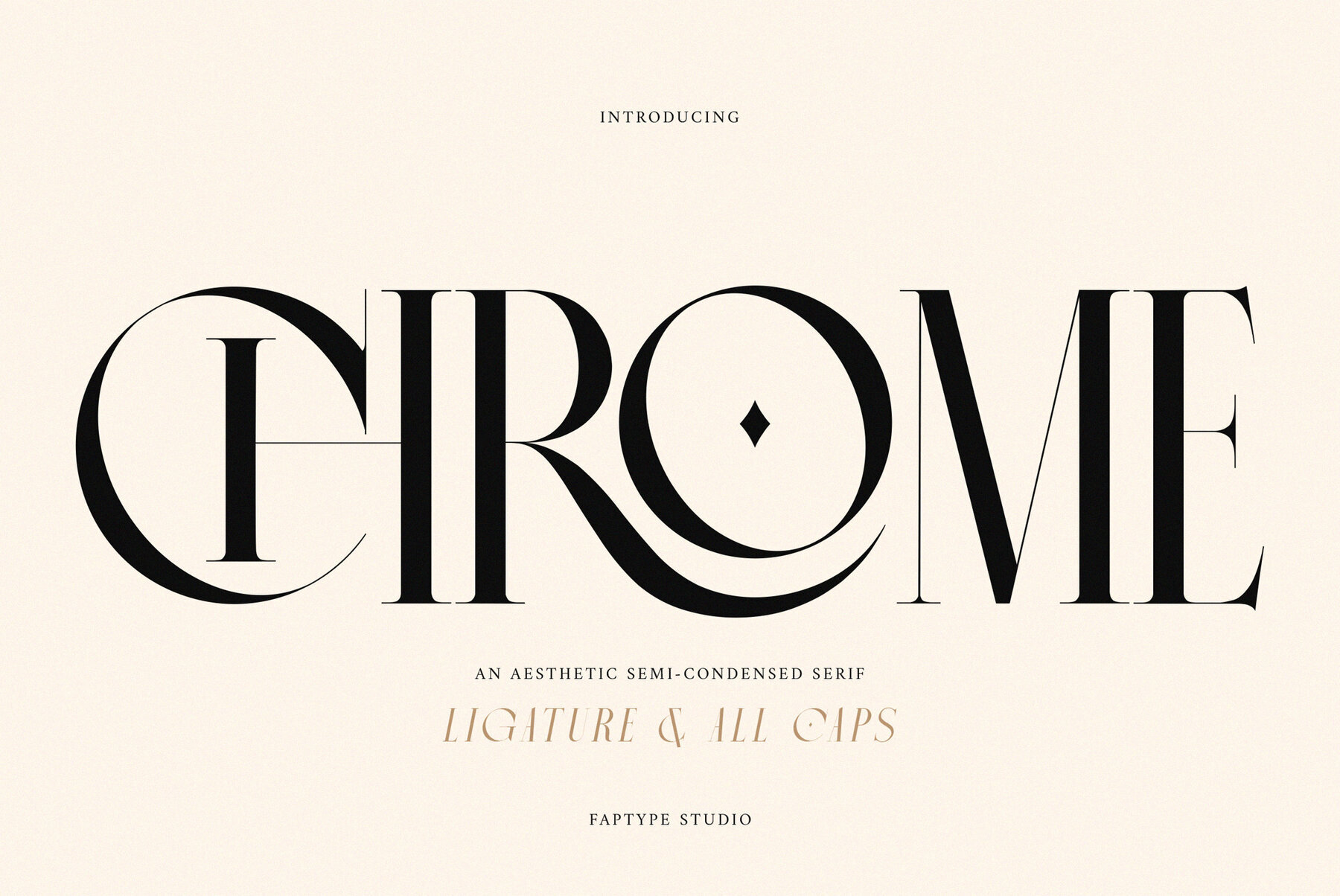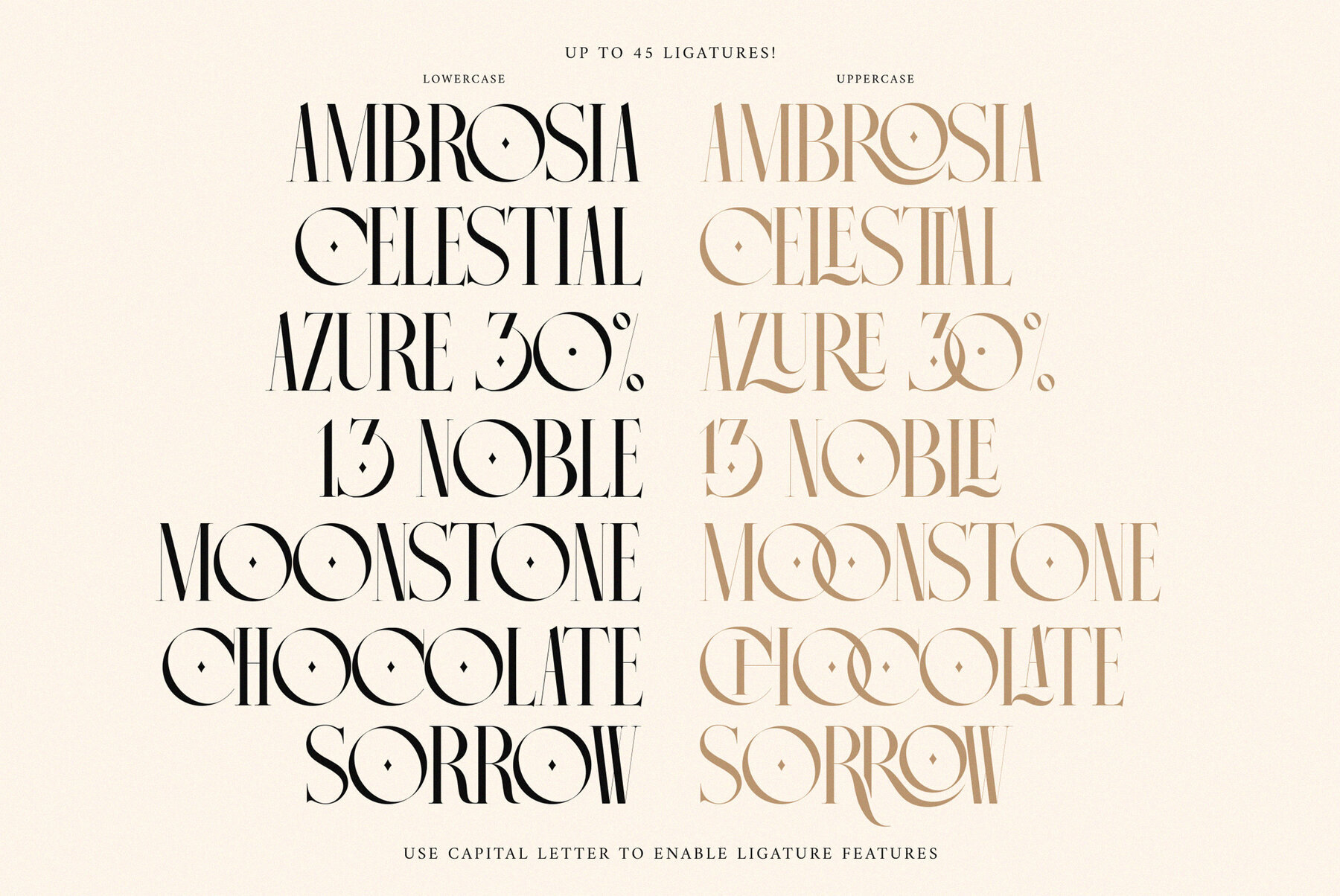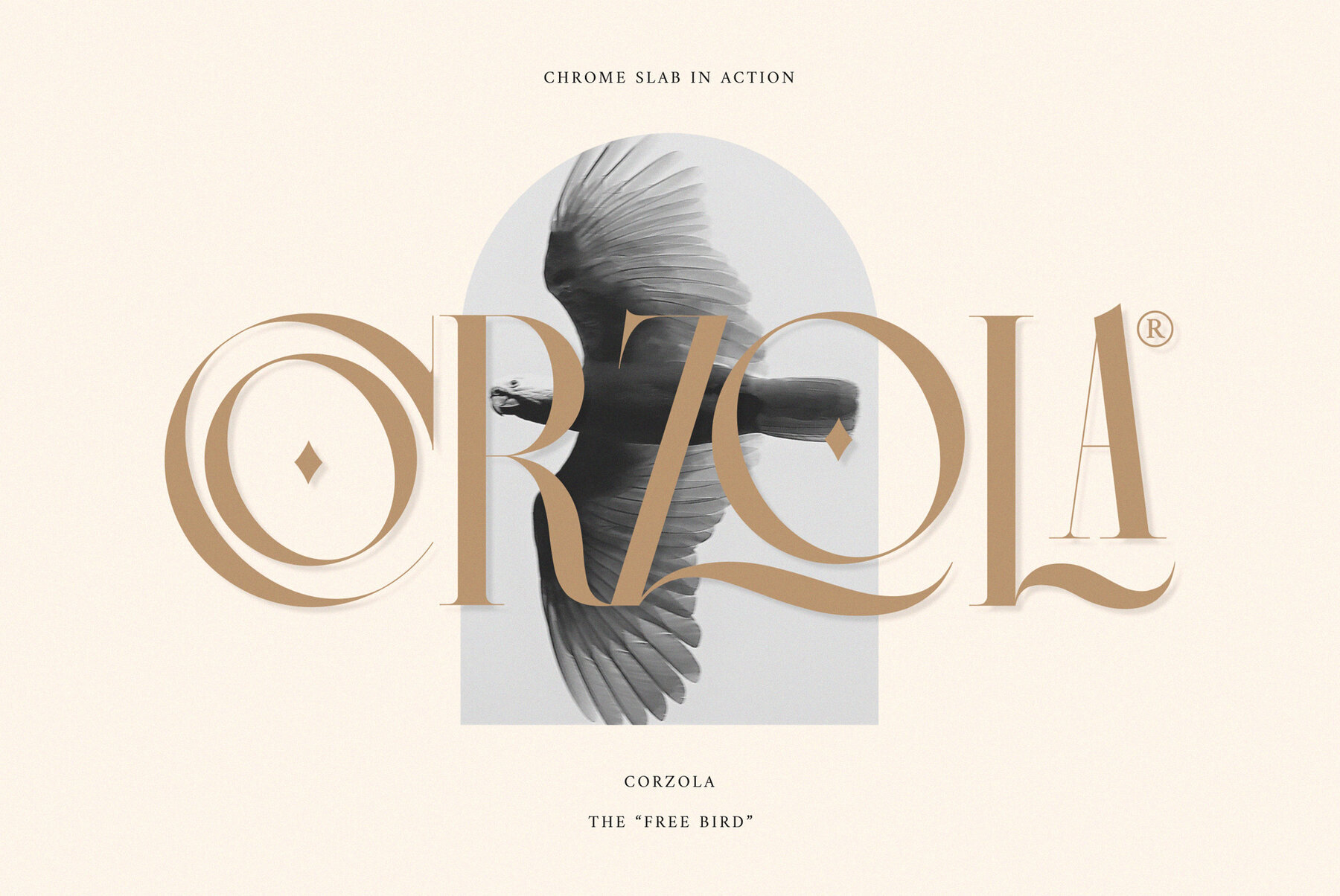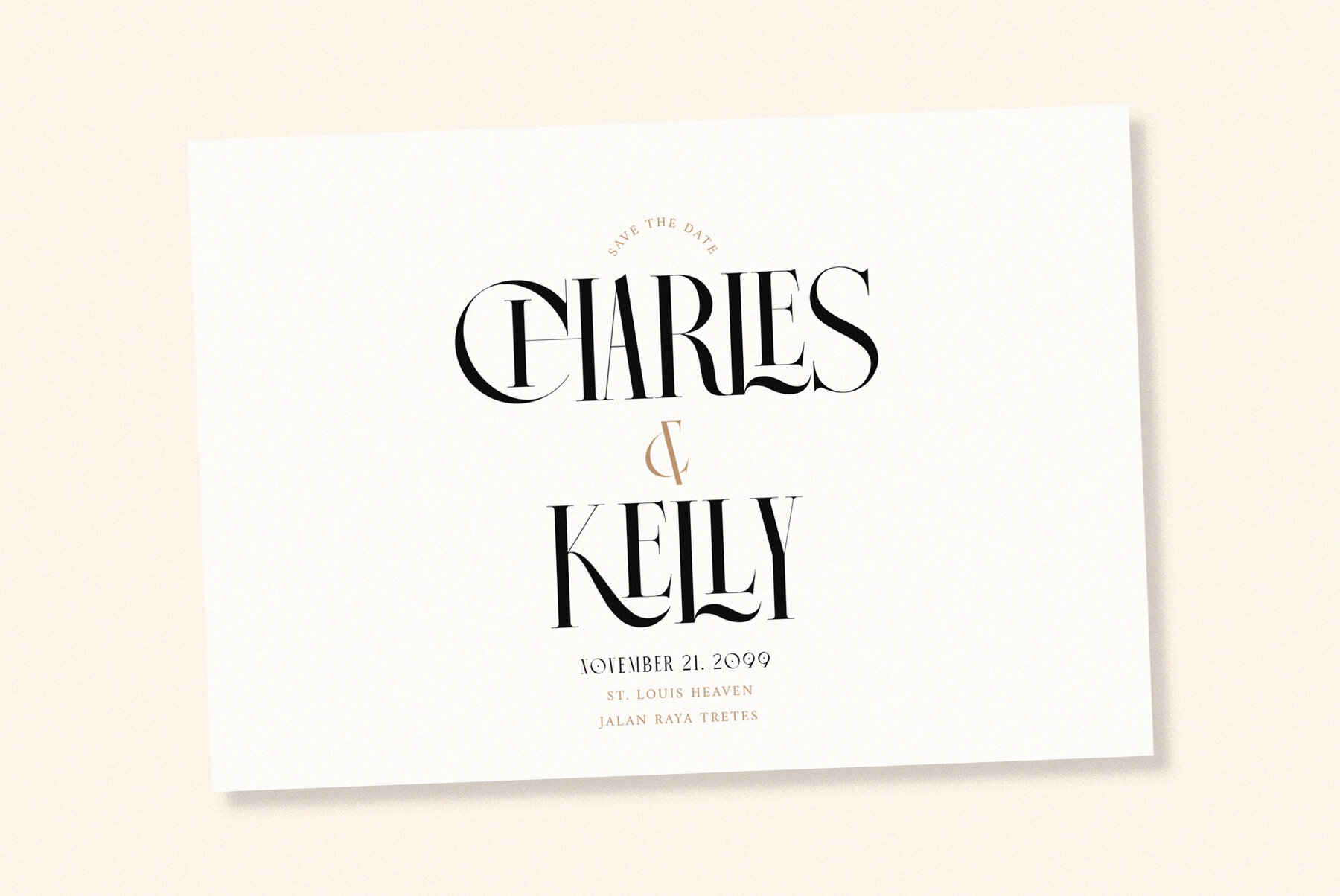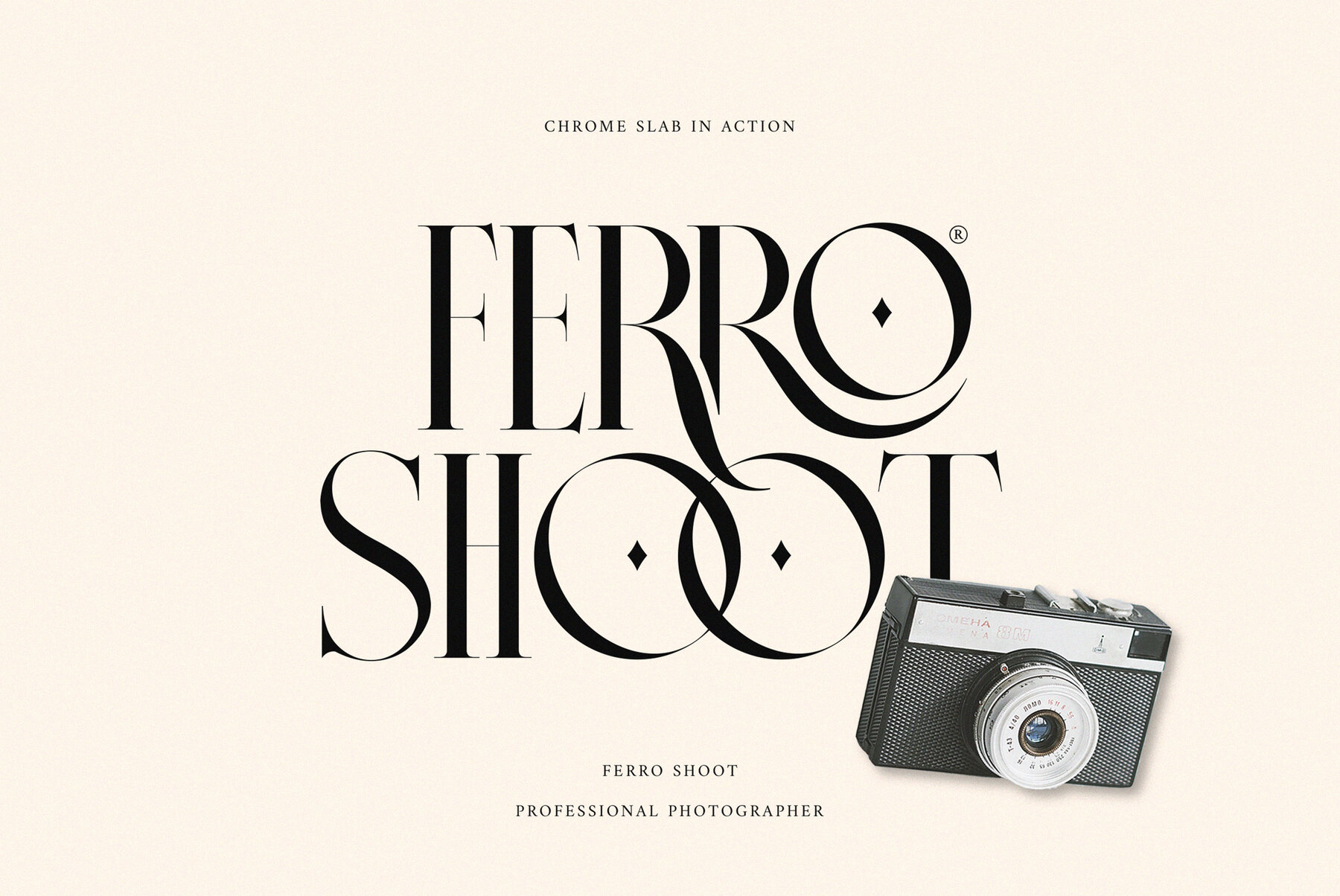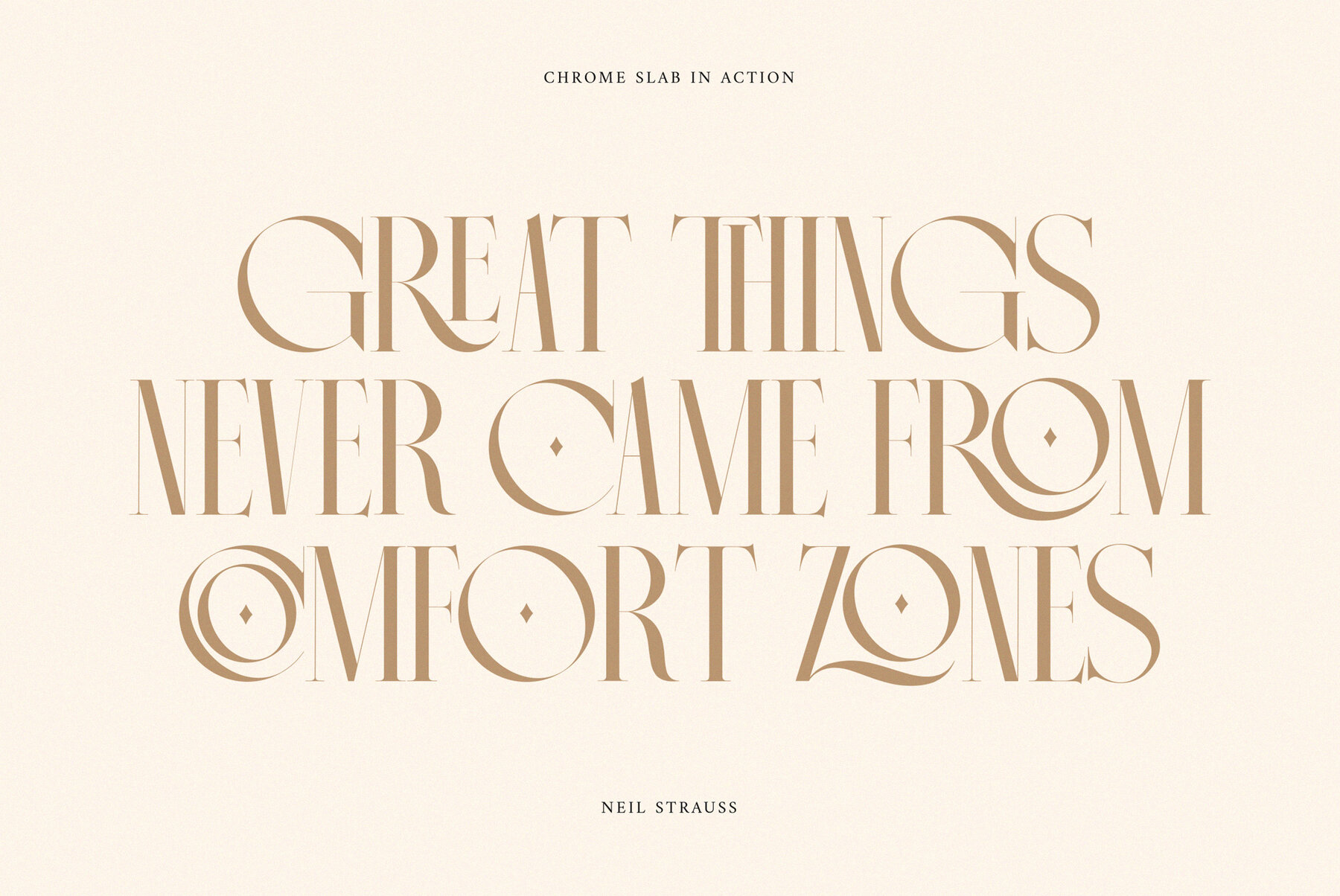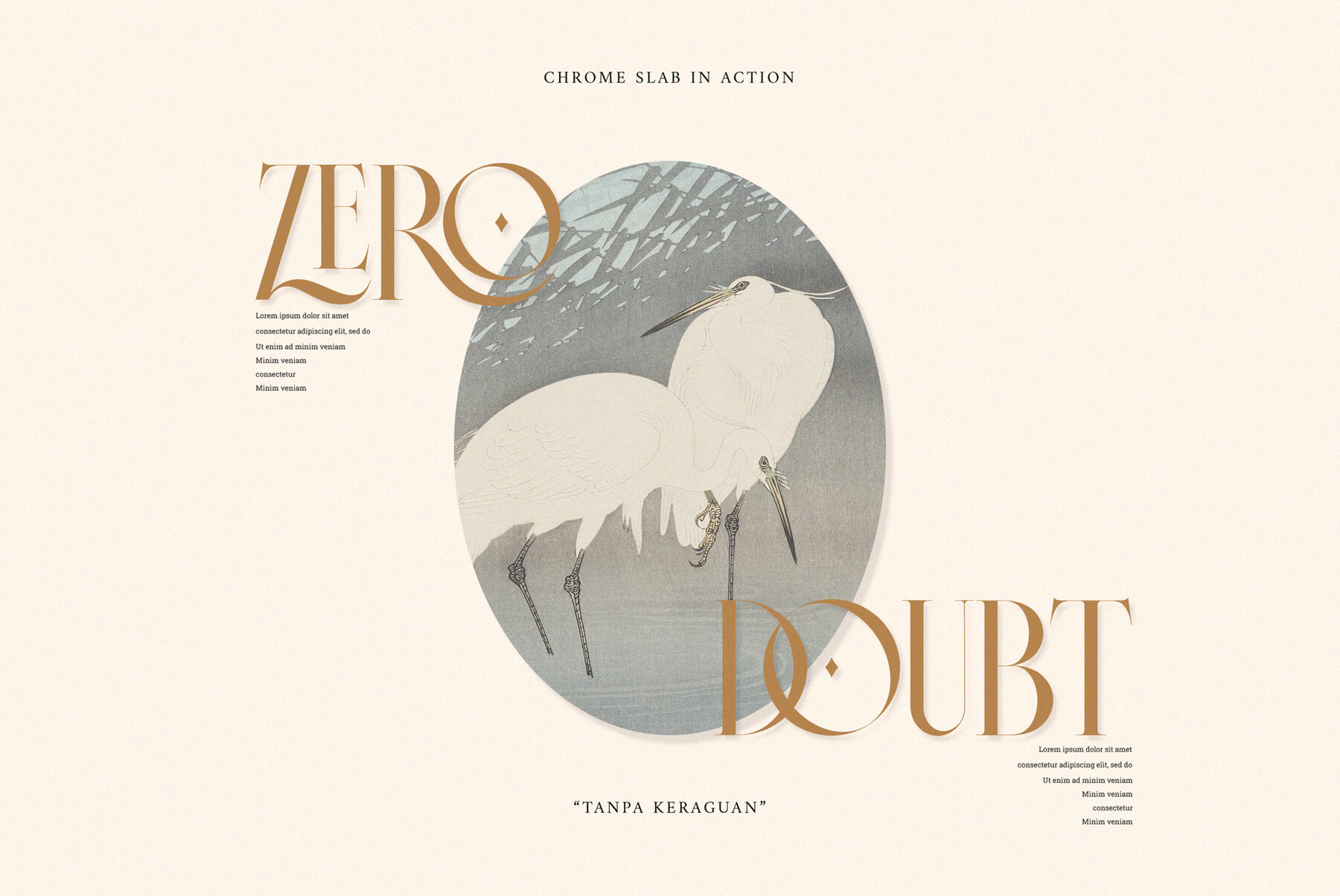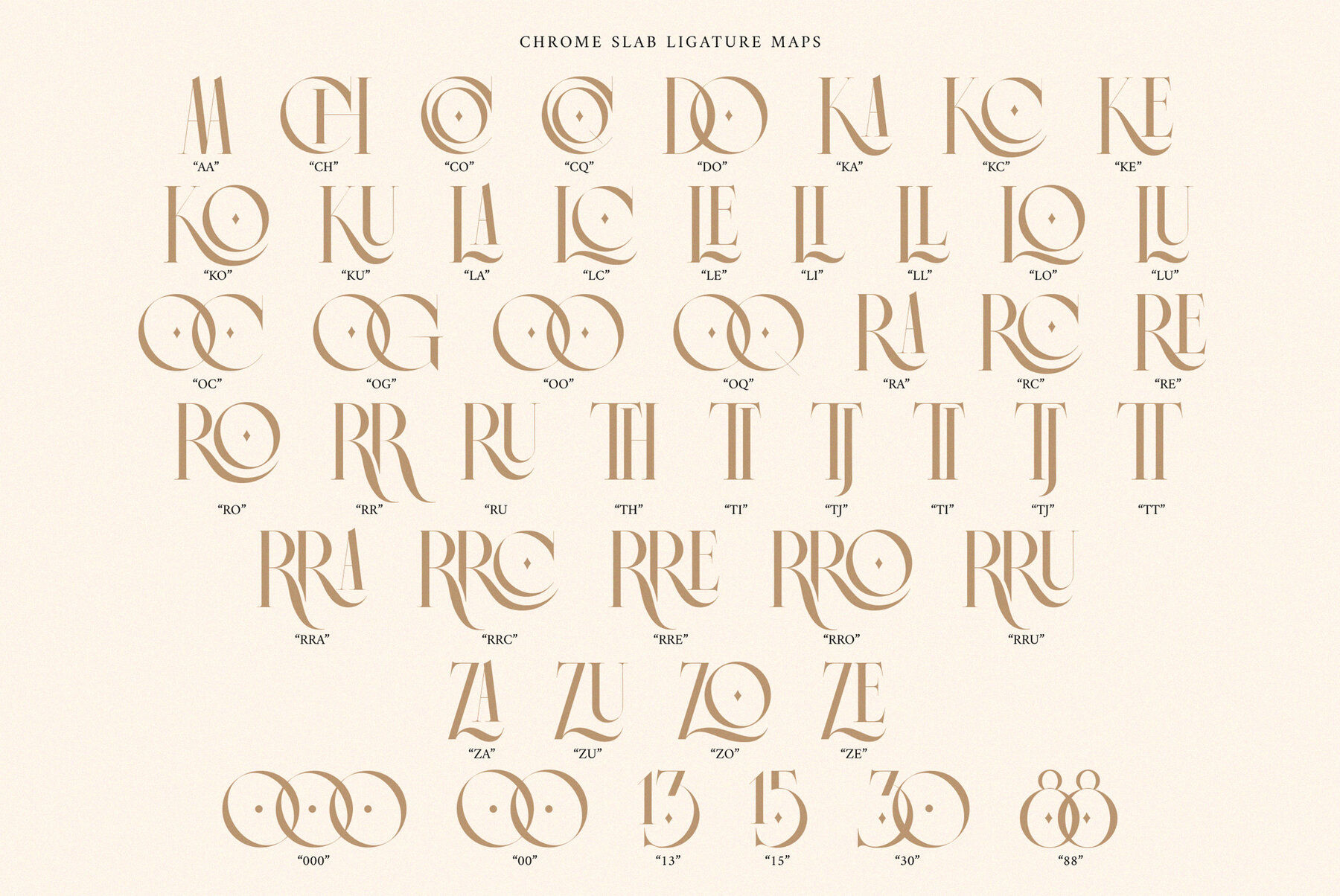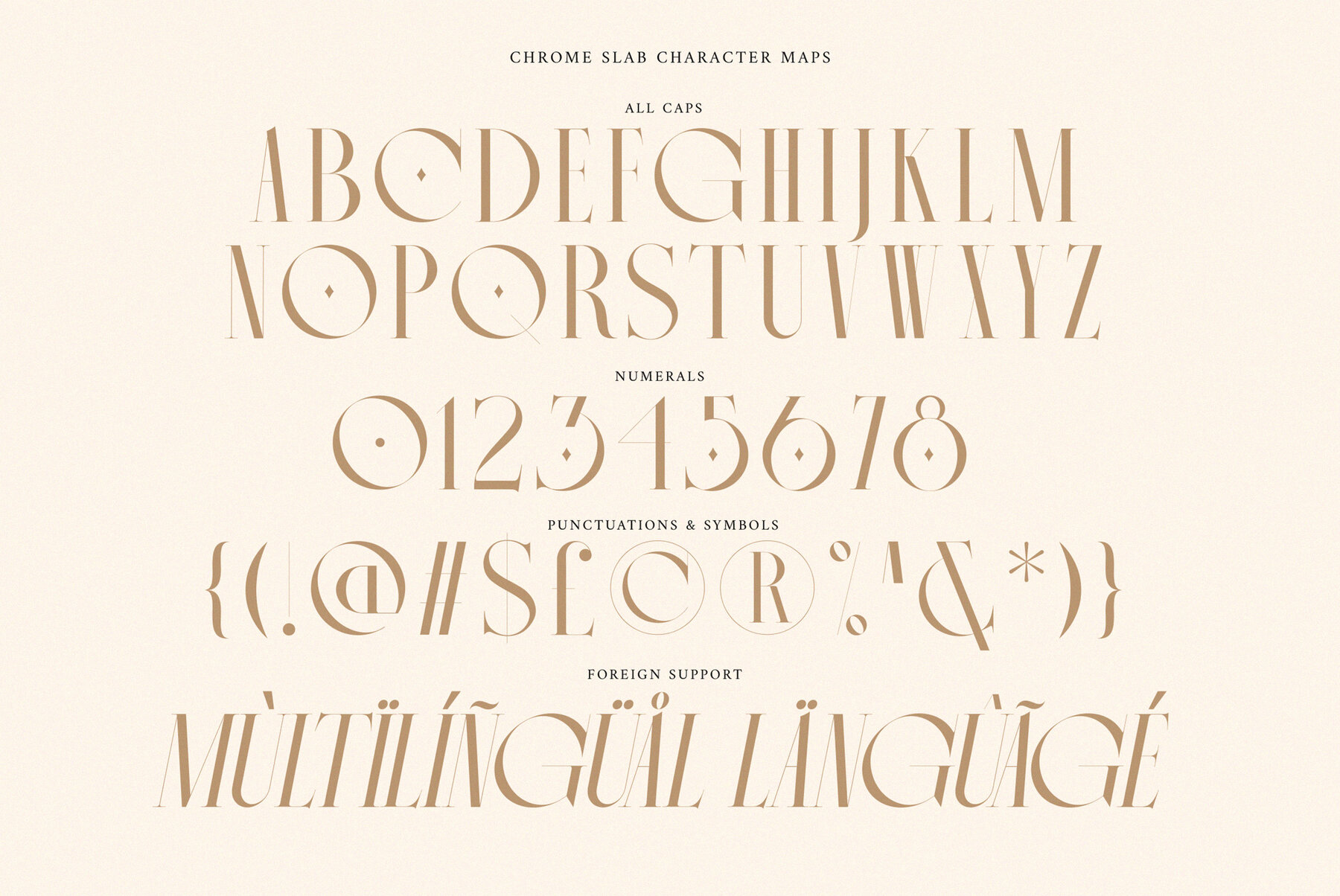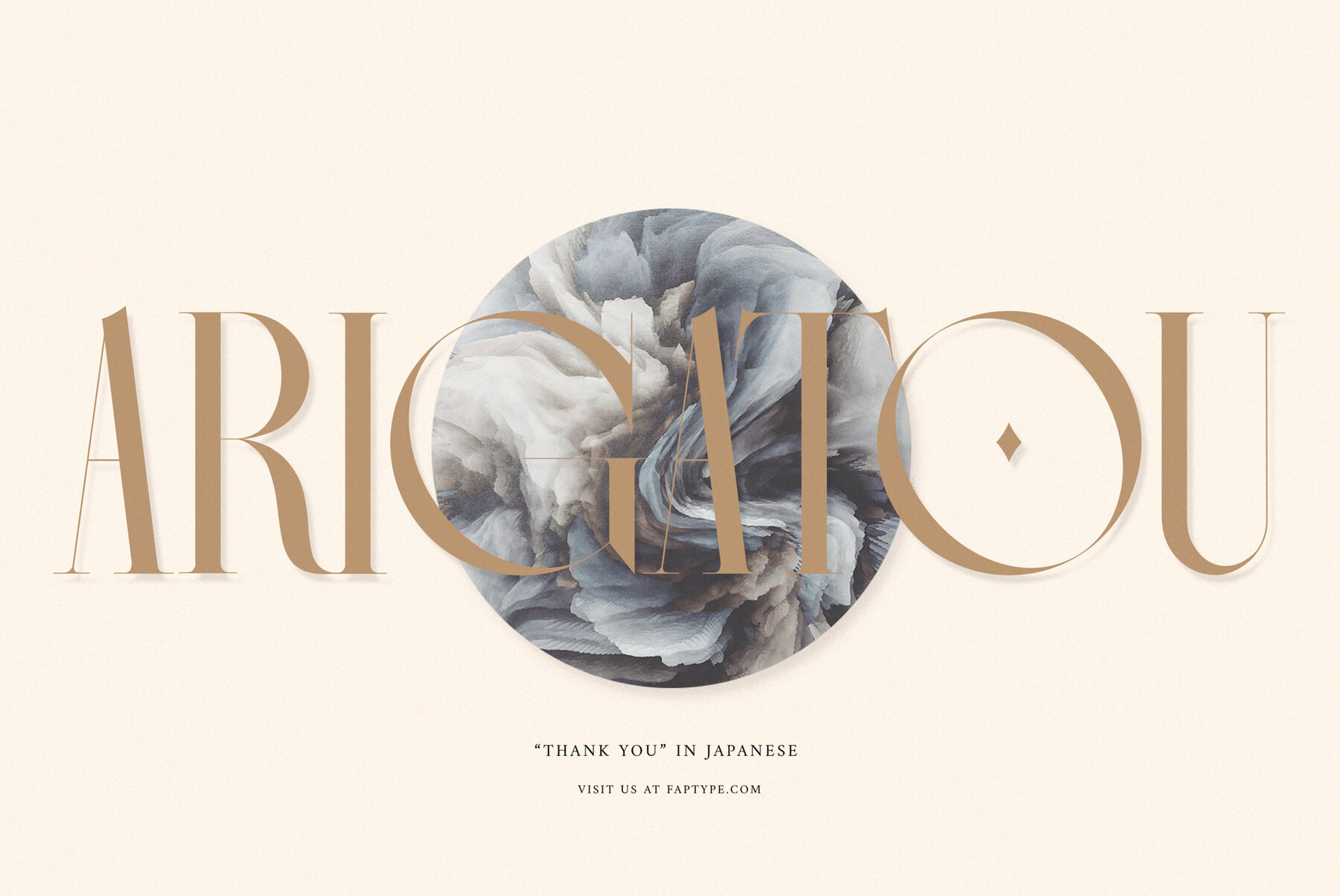
Chrome Slab Font
Introducing Chrome Slab, our brand new aesthetic semi-condensed serif font that embodies a perfect balance of elegance and versatility. With its captivating uppercase characters and exquisite design, this font is set to elevate your design projects to new heights. Chrome Slab boasts up to 45 beautiful ligatures, meticulously crafted to add a touch of sophistication and uniqueness to your typography. These ligatures seamlessly blend letterforms together, creating fluid and visually pleasing connections that enhance the overall aesthetic appeal of your text. In addition to its stunning ligatures, this font supports multilingual language, making it an ideal choice for projects with diverse linguistic requirements. Whether you're working with English, Spanish, French, German, or any other language, Chrome Slab ensures seamless integration and legibility across different typographic needs. The semi-condensed structure of Chrome Slab optimizes space utilization, allowing for efficient and impactful designs without sacrificing readability. Its compact yet elegant proportions make it perfect for a wide range of applications, including editorial designs, branding materials, packaging, and digital displays. With Chrome Slab, you'll have a powerful tool at your disposal, enabling you to create visually striking and professionally polished designs. Its aesthetic appeal, versatile ligatures, and multilingual support make it a must-have font for designers seeking to make a lasting impression. Chrome Slab features: